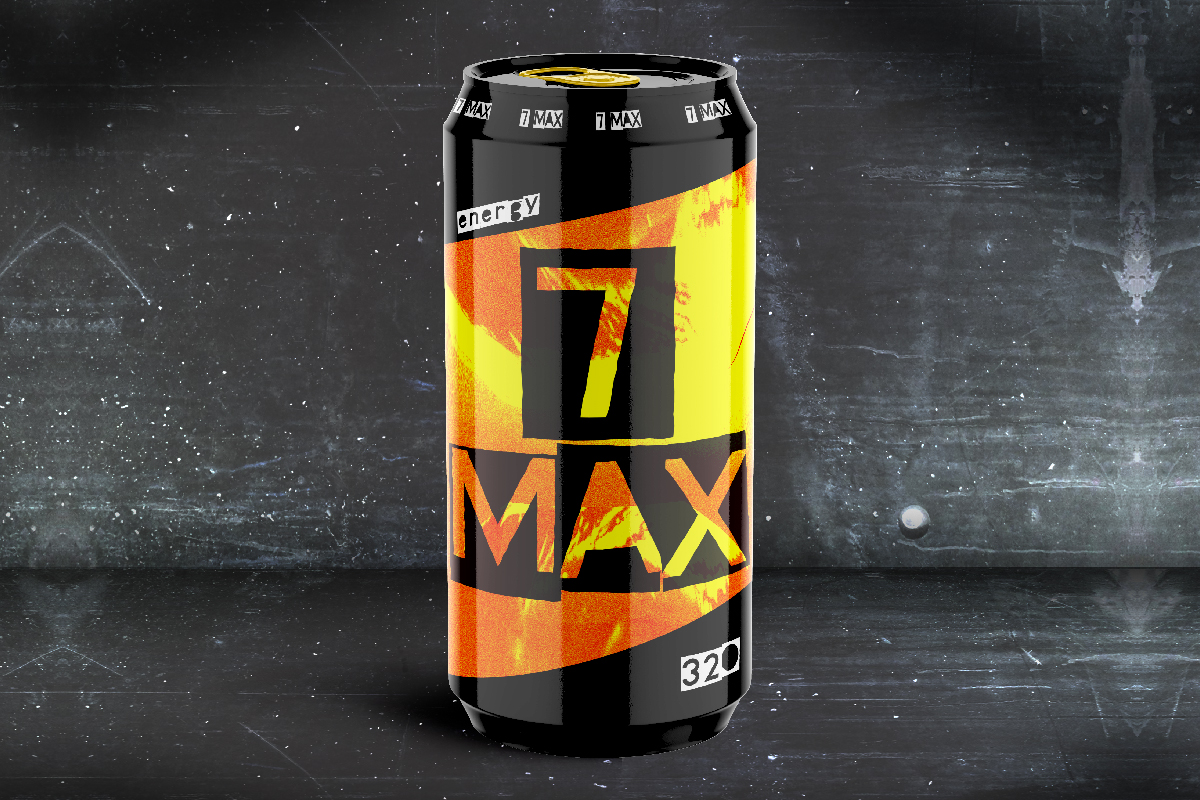
All The Box Font
All The Box Display Font
It’s a fun display font with magazine scrapbook style. This font originally inspired from retro vintage music vibes that has a unique style that keeps all the letters in an irregular box and still easy to read. Use this font to instantly make your designs standout.
All The Box Font includes full set of one font size for Basic Character, Numerals and Punctuation. This font is dedicated to those who like a unique and cool style. So it will be suitable for fashion, film, musician, author and writer, publishing, printing, custom design, interior design, and more!